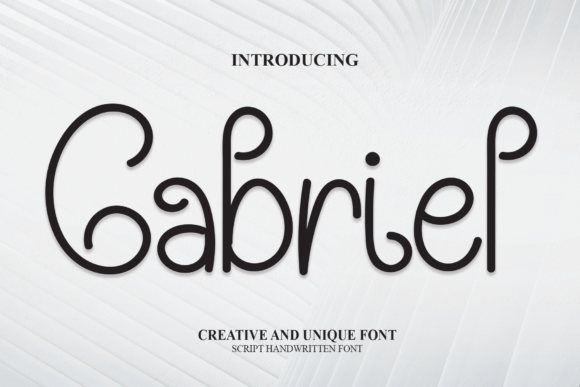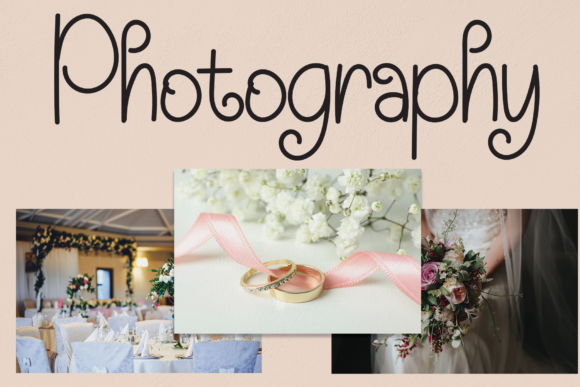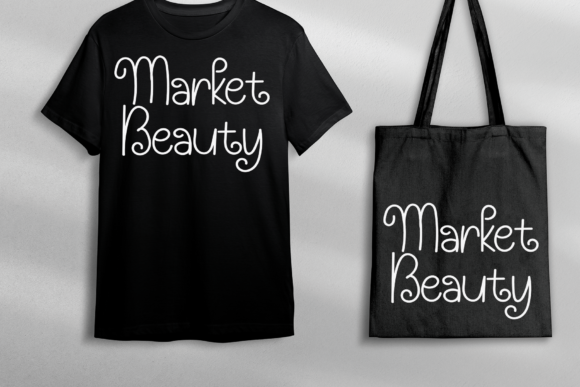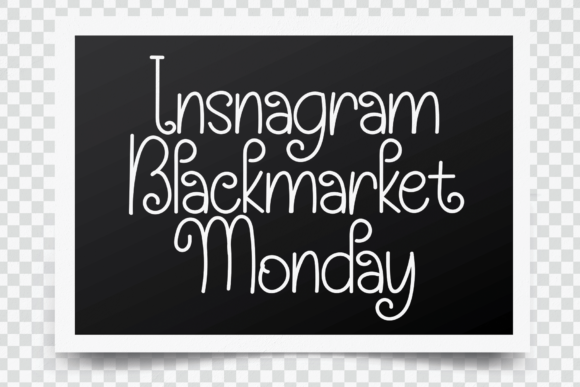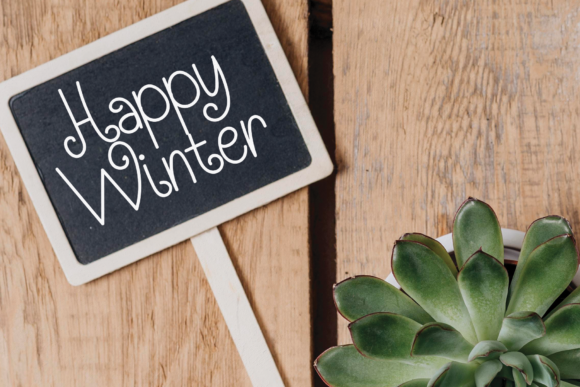
Gabriel Font
Gabriel is a whimsical and chic script font. It looks stunning on wedding invitations, thank you cards, quotes, greeting cards, logos, business cards and every other design which needs a handwritten touch.